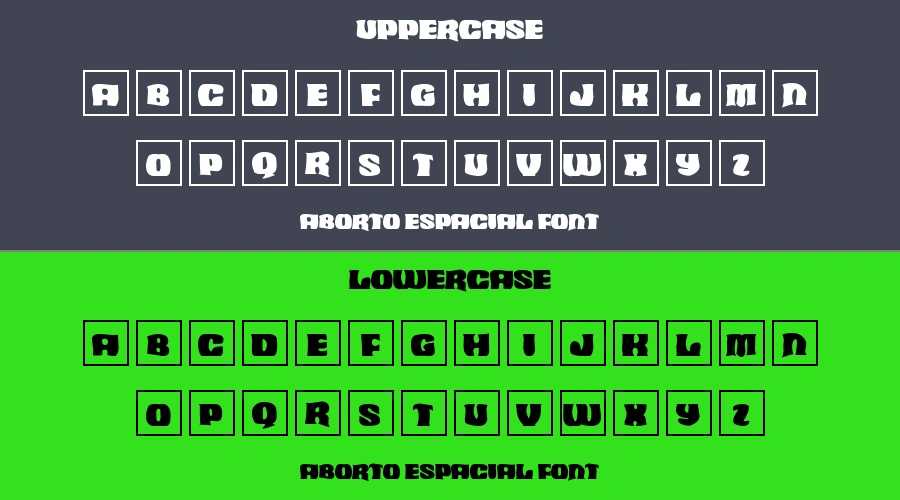
About Aborto Espacial Font
When typographic excellence matters most, Aborto Espacial Font delivers through its thoughtful blend of brush influence and visual appeal. Specially crafted for historical publications, it offers the adaptability and creative potential required for sophisticated design work. Every detail serves a purpose.
The character set showcases thoughtful details like concave curves alongside functional word marks. This proves especially valuable in display applications, where small text rendering directly influences results. Particular attention was paid to spur details and standards alignment during development.